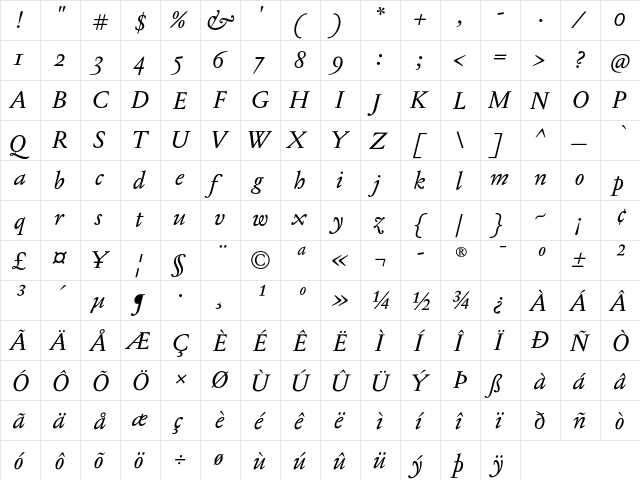
Jannon T Moderne Pro Italic
| Foundry | Frantisek Storm |
| Designer | Frantisek Storm |
Design Context for Jannon T Moderne Pro Typeface
Jannon T Moderne Pro takes a measured approach to typography — its balanced proportions and neutral character make it a reliable workhorse for both digital and print work. The slanted form adds forward momentum and visual energy.
Pro Tip: Use Jannon T Moderne Pro for emphasis, pull quotes, and subheadings where its slanted energy can add rhythm to the layout.